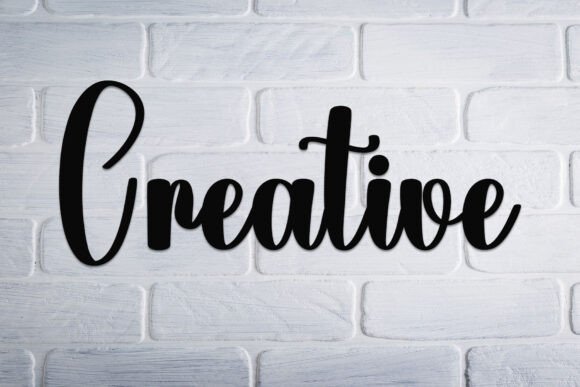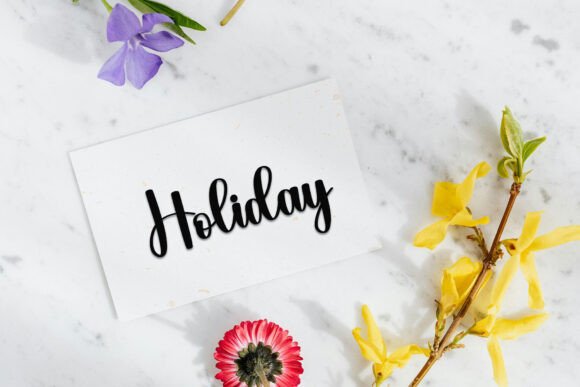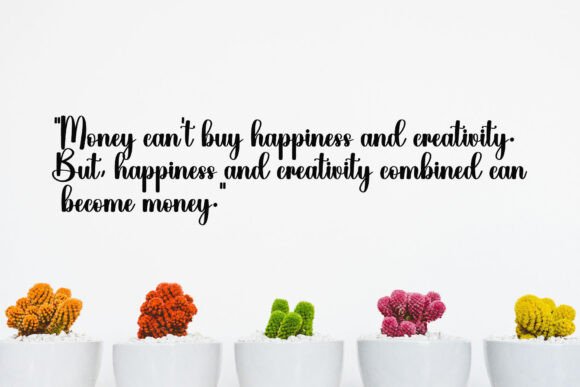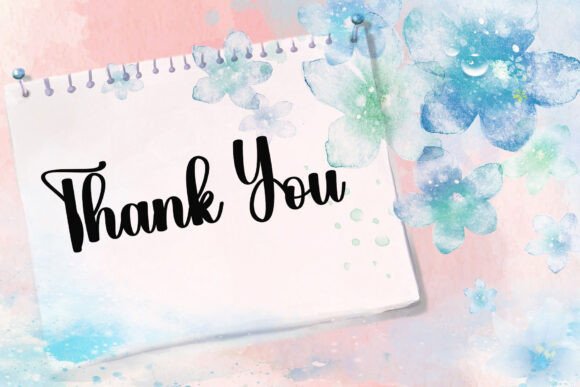
Baby Boho Font: The Sweet and Cursive Handwritten Font for Your Design Needs
Are you looking for a font that can add a touch of elegance and whimsy to your designs? Look no further than the Baby Boho font! This sweet and cursive handwritten font is perfect for a variety of design projects, from branding and logos to wedding materials and greeting cards.
The Characteristics of Baby Boho Font
Baby Boho is a gentle and elegant font that features a cursive and handwritten style. Its soft and flowing lines make it perfect for designs that require a touch of romance and whimsy. The font is highly versatile and can be used for a wide range of design projects, including:
- Branding and logos: Add a personal touch to your brand with the Baby Boho font.
- Wedding materials: Make your wedding designs, such as invitations and programs, truly special with this beautiful font.
- Greeting cards: Create heartfelt and personalized greeting cards with the Baby Boho font.
- Fashion and lookbooks: Add a touch of elegance and sophistication to your fashion designs and lookbooks.
- Marketing promotions: Make your marketing materials stand out with the Baby Boho font.
Why Choose Baby Boho Font?
There are many reasons why you should choose the Baby Boho font for your design needs. Here are a few:
- Unique and eye-catching: The Baby Boho font is a unique and eye-catching font that will make your designs stand out from the crowd.
- Highly versatile: This font can be used for a wide range of design projects, from branding and logos to wedding materials and greeting cards.
- Elegant and whimsical: The Baby Boho font features a elegant and whimsical style that will add a touch of romance and sophistication to your designs.
- Easily readable: The font is highly legible, making it perfect for designs that require a clear and easy-to-read font.
How to Use Baby Boho Font in Your Designs
Using the Baby Boho font in your designs is easy! Here are a few tips to get you started:
- Pair it with other fonts: The Baby Boho font pairs well with other fonts, such as sans-serif fonts, to create a unique and interesting design.
- Experiment with colors: The font looks great in a variety of colors, from soft pastels to bold and bright colors.
- Use it for headings and titles: The Baby Boho font is perfect for headings and titles, where you want to make a statement and add a touch of elegance to your design.
If you’re a designer or crafter looking to use the Baby Boho font in your designs, here are a few tips to keep in mind:
- Use it for DIY projects: The Baby Boho font is perfect for DIY projects, such as handmade cards and invitations.
- Create custom designs: Use the font to create custom designs for your clients, such as logos and branding materials.
- Experiment with different styles: Don’t be afraid to experiment with different styles and techniques, such as adding flourishes and swashes to the font.
In conclusion, the Baby Boho font is a sweet and cursive handwritten font that is perfect for a variety of design projects. Its elegant and whimsical style makes it a great choice for designers and crafters looking to add a touch of romance and sophistication to their designs. With its highly legible and versatile design, the Baby Boho font is sure to become a favorite in your design arsenal.